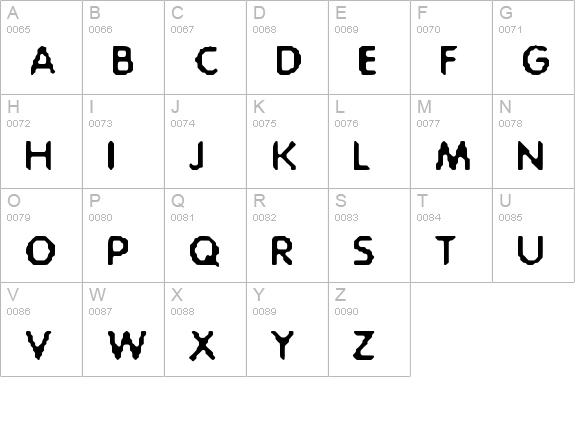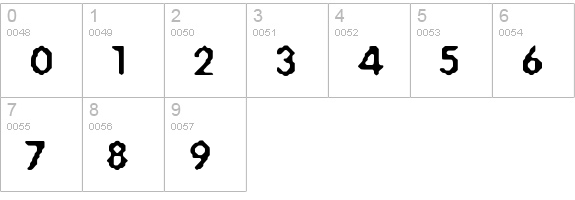
Acid Bath Font Details
The Acid Bath font is a striking and edgy typeface that exudes a bold and rebellious vibe. Its sharp angles and unique design make it perfect for projects that require a touch of attitude and individuality. The Acid Bath font is versatile and can be used for a variety of design projects, from posters and album covers to branding and social media graphics. Best of all, the Acid Bath font is available for free download at FontsMarket.com. This means you can easily add this eye-catching font to your collection without breaking the bank. Whether you're a designer looking to spice up your projects or a creative individual wanting to make a statement, the Acid Bath font is sure to impress. Download it today and let your creativity shine with this distinctive typeface.